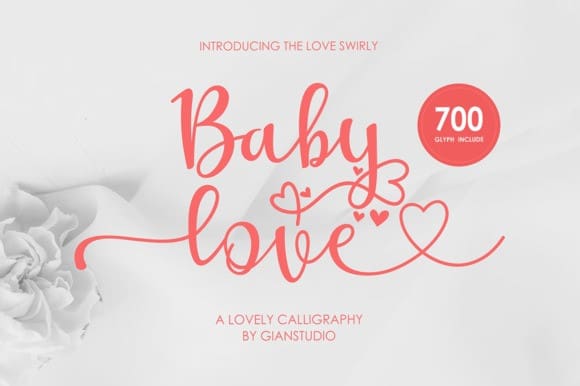
Baby Love Premium Font
Baby Love Premium Font, is an exquisite handwritten font, masterfully designed to become a true favorite. It maintains its classy calligraphic influences while feeling contemporary and fresh. Fall in love with it and bring your projects to the highest levels! This font is PUA encoded which means you can access all the glyphs and ligatures with ease!